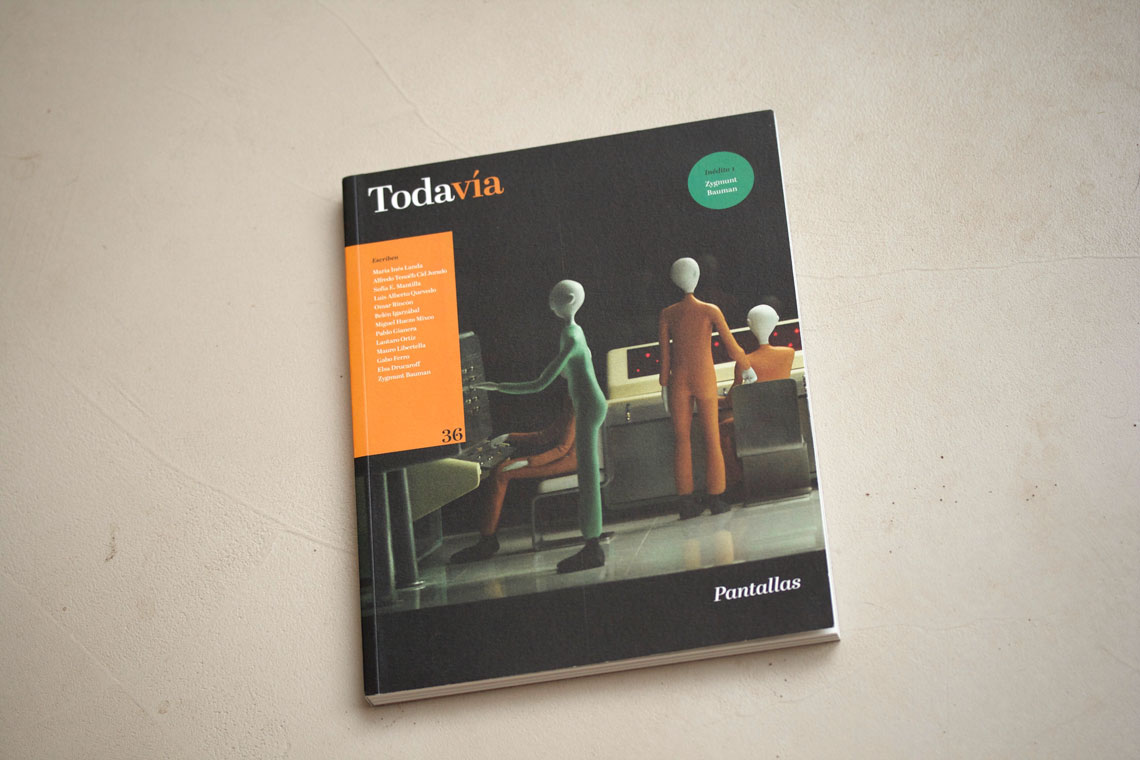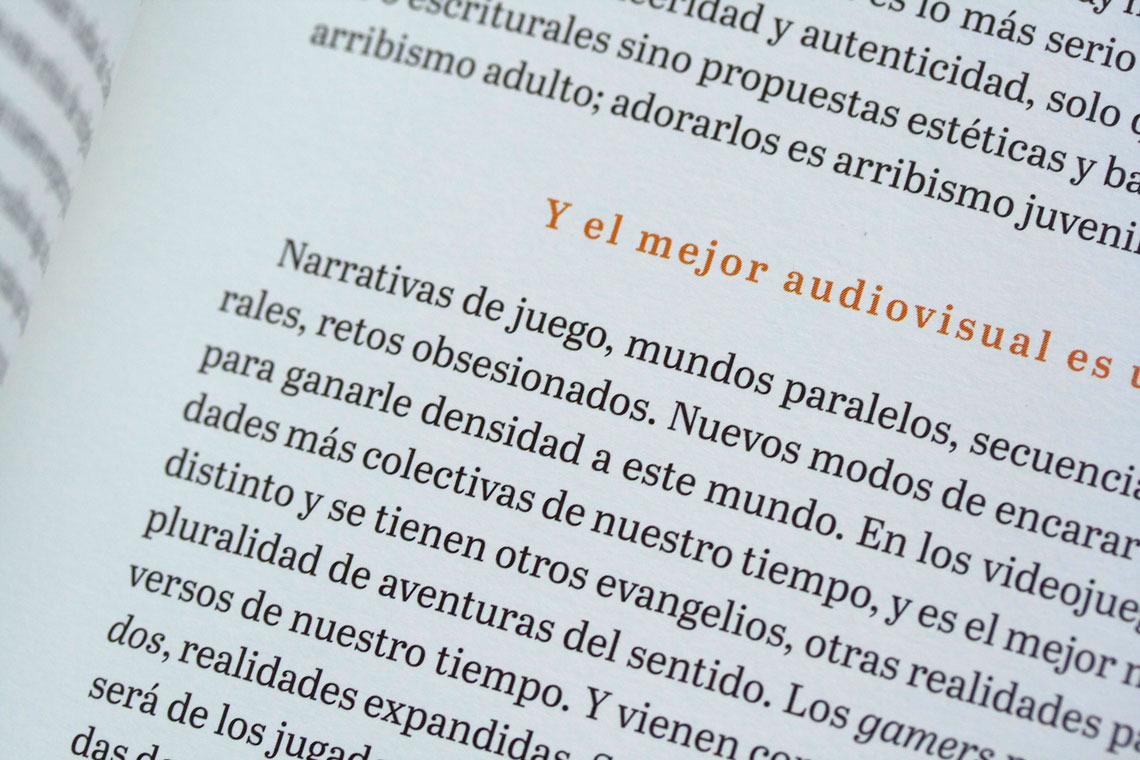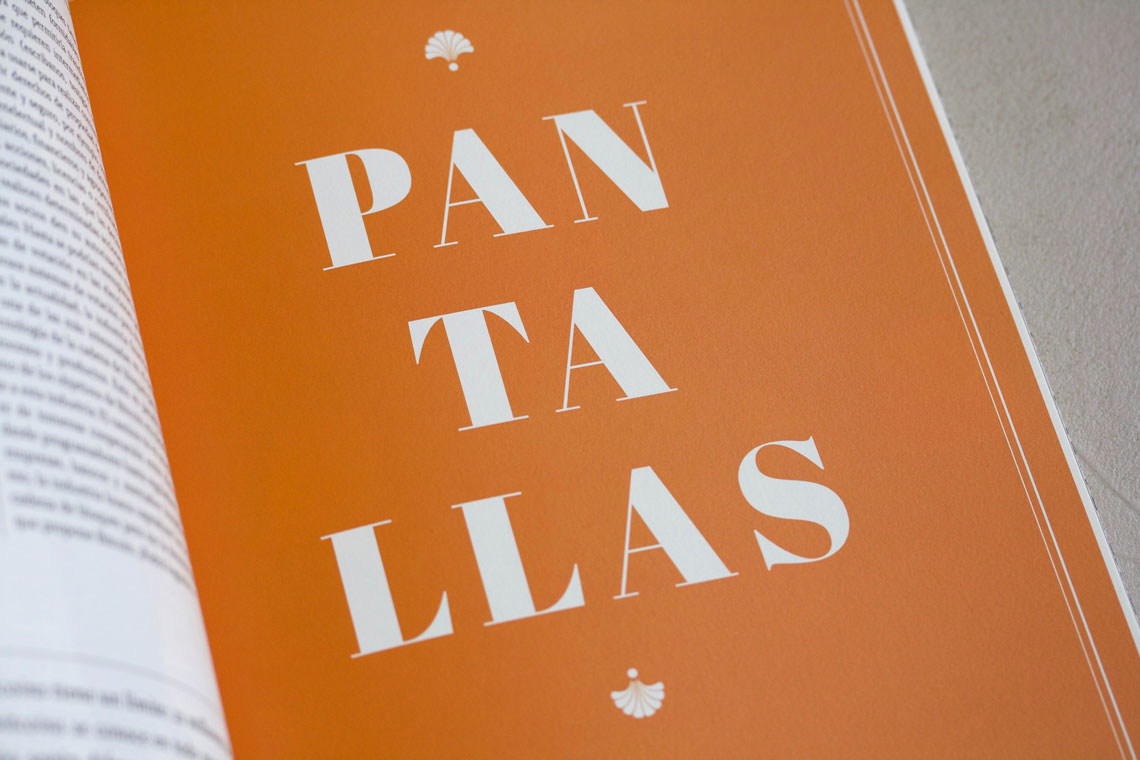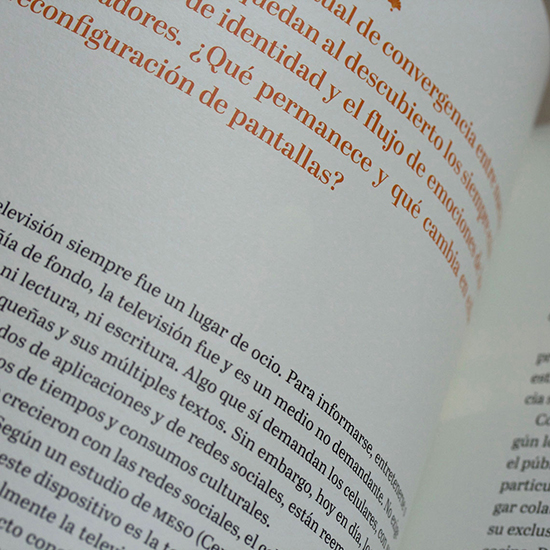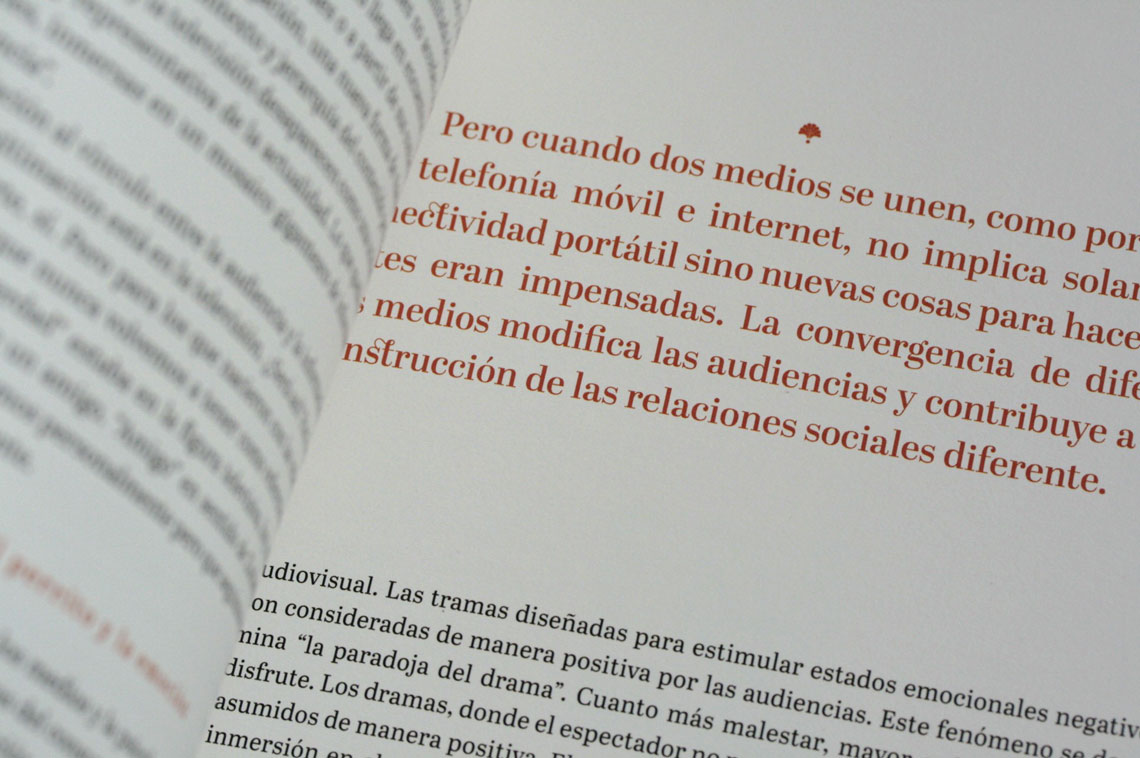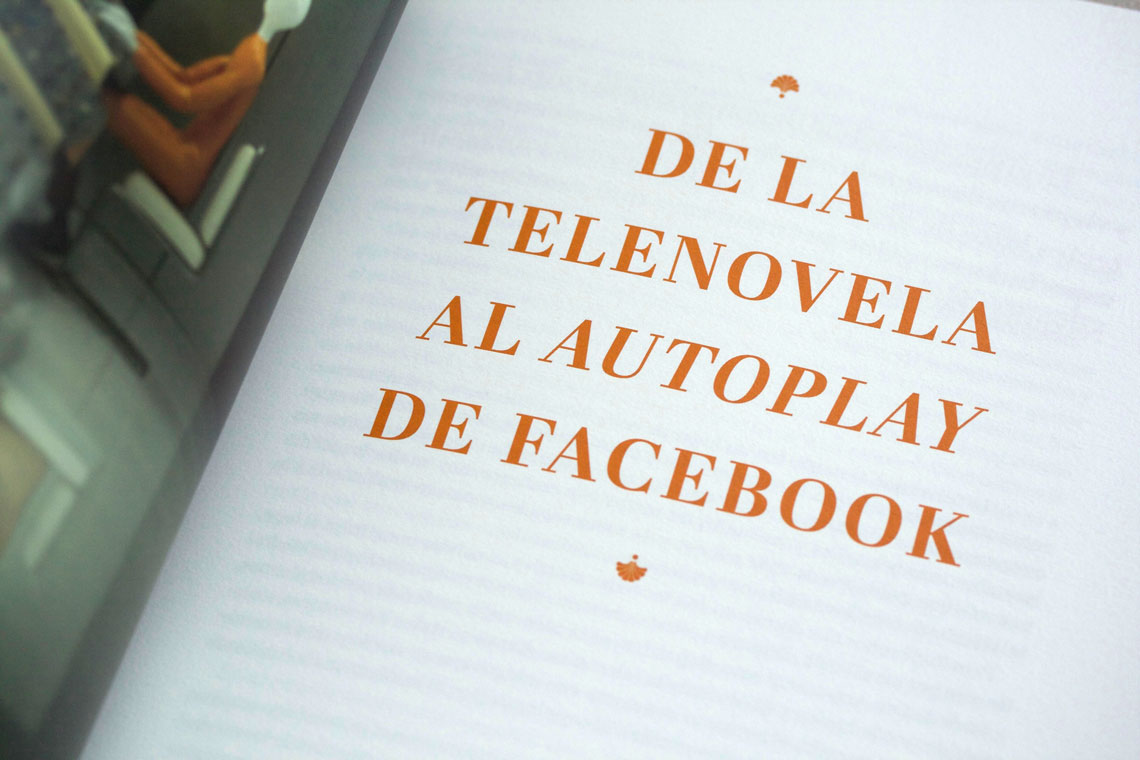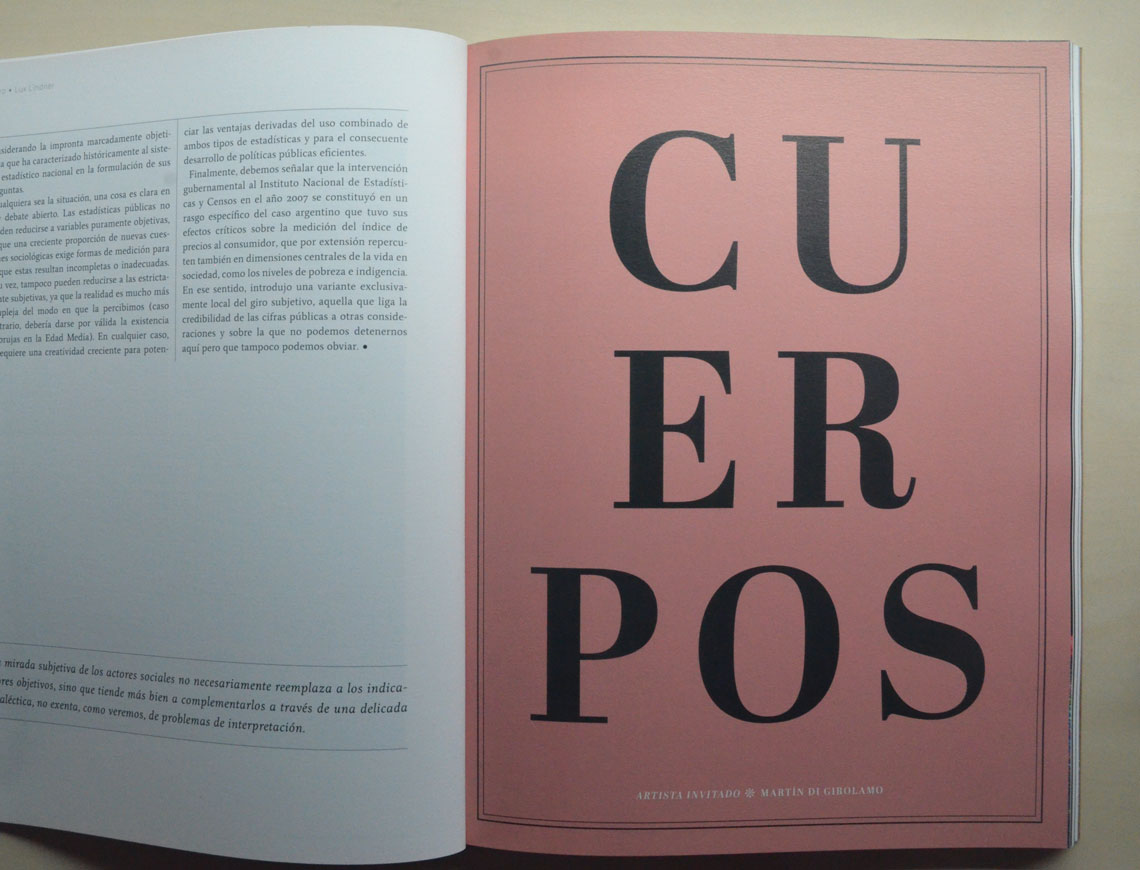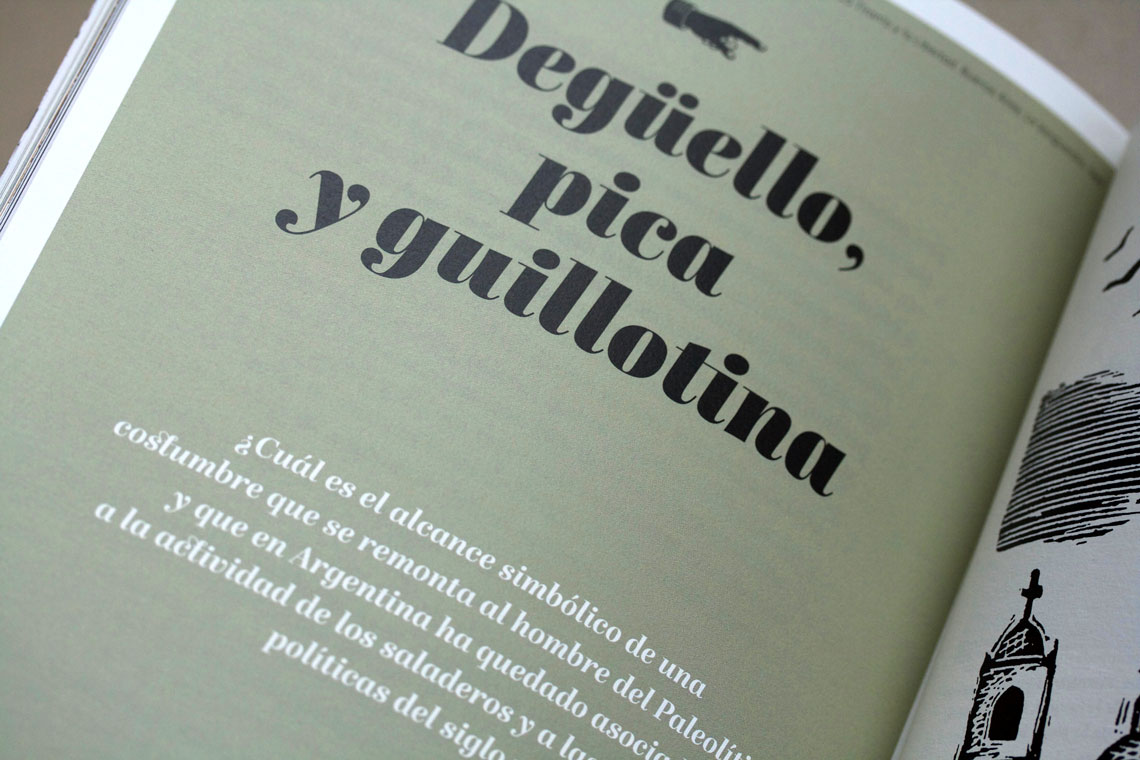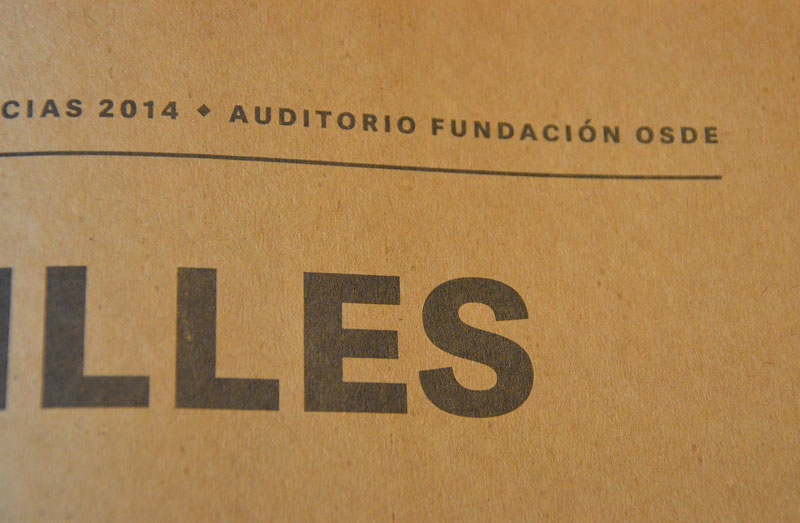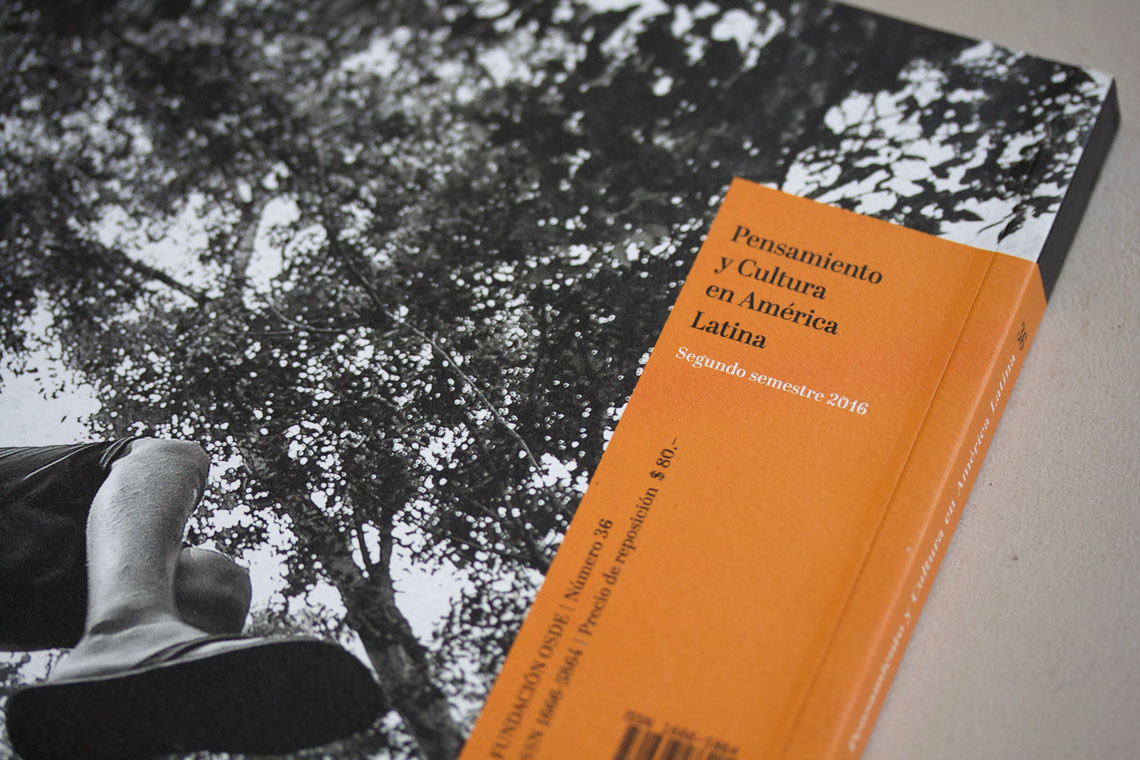
Todavía magazine
Argentinian magazine Todavía ran for 40 issues and enjoyed a warm reception in Latin American culture. Among other typefaces, Abril and Adelle Sans were featured prominently and in arresting ways.
Todavía was an Argentinian magazine published by the Fundación OSDE, a magazine with a cultural focus from a Latin American perspective. Its main goal was to introduce to readers the themes, authors, and artists from the region, with an overall aim of integration, respect, and democratic coexistence amongst country.
Closing with a total of 40 issues published, the design concept and art direction were in the hands of the renowned Estudio LoBianco from Buenos Aires, and the mise-en-page by Theo Contestin and Catalina Ruiz Luque. A magazine of typographic excellence, it used, among others, two of TypeTogether’s families, Abril and Adelle Sans.
Abril was used in a way that showed all its abilities: long and short texts, displays, and opening titles; and it was in the titles where its more organic and extroverted characteristics flourished.
Adelle Sans was used in various articles, in shorter texts generally, and in particularly strong monochromatic compositions printed on rough papers. Overall, Todavía magazine was delightful to see and read and will be highly missed.